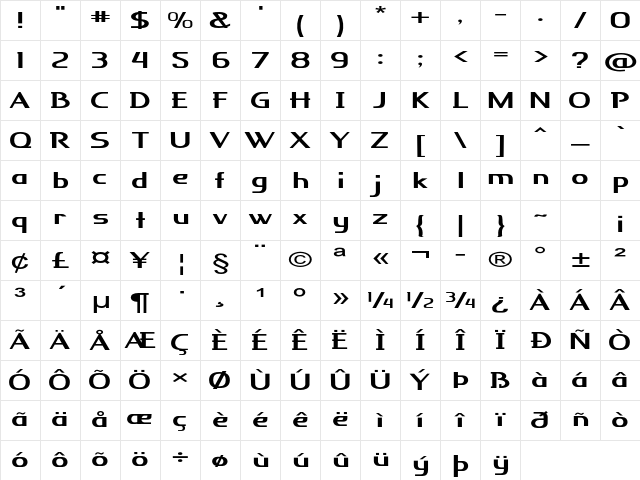
Knuckle Black Extra-expanded Regular
Style: Extra-expanded Regular
Knuckle Black Family
Knuckle Black Extra-expanded Regular
Design Context for Knuckle Black
Knuckle Black is a composed and adaptable typeface that performs quietly and consistently across a wide range of design contexts.